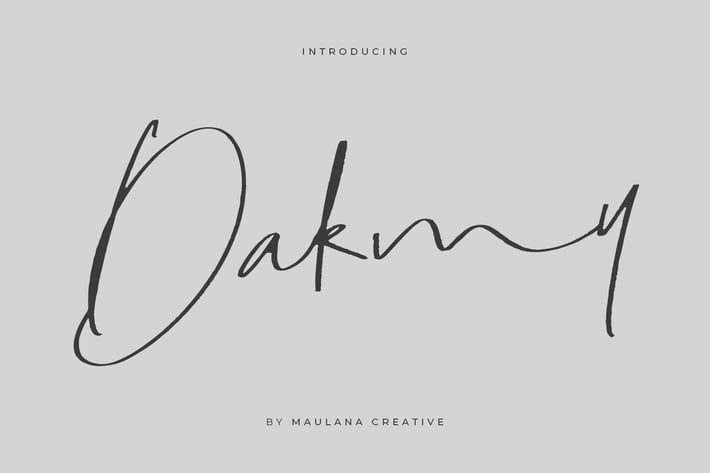
Dakmy Signature Brush Font
Dakmy got style and love all the luxuries in life. It's highly recommended to turn your Opentype features (Ligature) on while using the script font. Your text looks like natural handwriting.